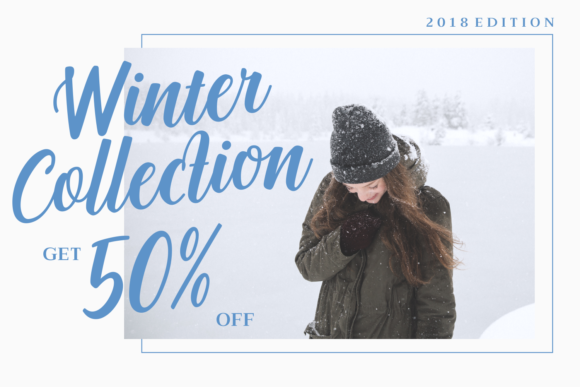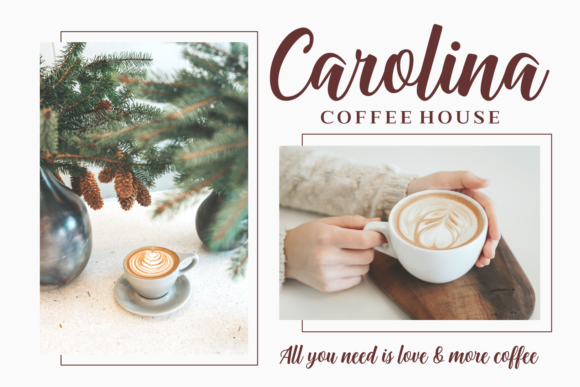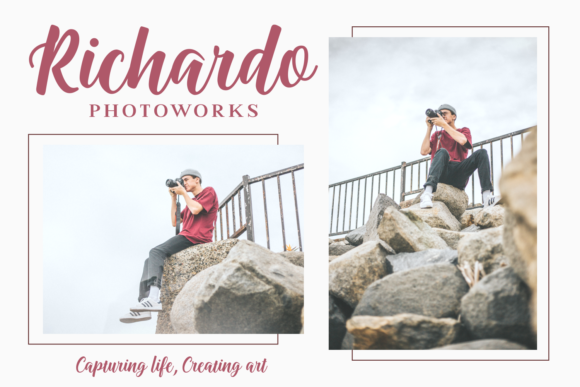
Onadio Font
About Onadio Font
Onadio is a beautiful hand lettered script font. With it’s curly letters and swashes, Onadio will give your design a feminine  touch which is why you can use it for lots of creative ideas.